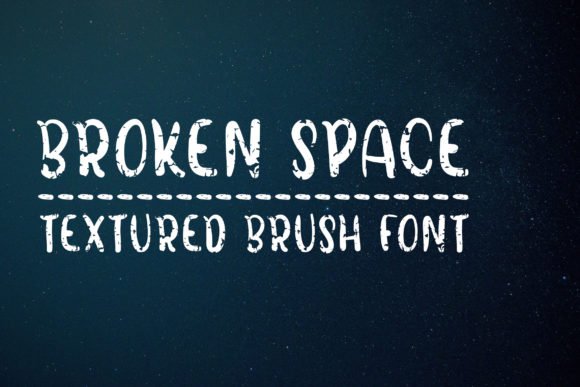
Discover the Unconventional Charm of Broken Space Font
Enter Broken Space Font, a handmade script full of love and charm. This unique font is designed to add a touch of rough elegance to any design project. Whether you’re working on a brand identity, a logo, or a marketing campaign, Broken Space Font is the perfect companion to help you create something truly special.
As a designer, you know how important it is to find that one font that speaks to your audience. Broken Space Font is a valuable addition to any designer’s toolkit, offering a distinctive and charming aesthetic that’s sure to set your designs apart from the crowd.
Broken Space Font Key Features
- Font Family: Broken Space Font is a unique, hand-drawn font designed for creative and artistic purposes.
- Unique Characteristics: Features a distressed, hand-crafted aesthetic with subtle texture and imperfections, adding a touch of personality to any design.
Broken Space Font Review
I’ve had the chance to work with the Broken Space Font and I’m excited to share my thoughts on it. Here’s what I think:
- Unique aesthetic: The Broken Space Font has a distinct, otherworldly feel to it that sets it apart from more traditional fonts.
- Good for creative projects: Its quirky style makes it perfect for use in creative projects, such as art, design, or advertising campaigns.
- Well-suited for headings: The font’s bold, statement-making style makes it ideal for use as headings or titles.
- Difficult to read at small sizes: The font’s irregularities can make it challenging to read at smaller font sizes.
- Not ideal for body text: The font’s unique style can be overwhelming for long blocks of text, making it less suitable for use as body text.
- Limited language support: The font may not support all languages or character sets, which could be a limitation for certain projects.
The Broken Space Font is a bold, eye-catching choice that’s perfect for creative projects or use as headings. However, its limitations make it less suitable for body text or projects that require a more traditional font.
Use the Broken Space Font for creative, eye-catching headings and titles. It’s perfect for designing posters, social media graphics, and other promotional materials. To get the most out of the font, experiment with different font sizes and colors to create a visually appealing design.